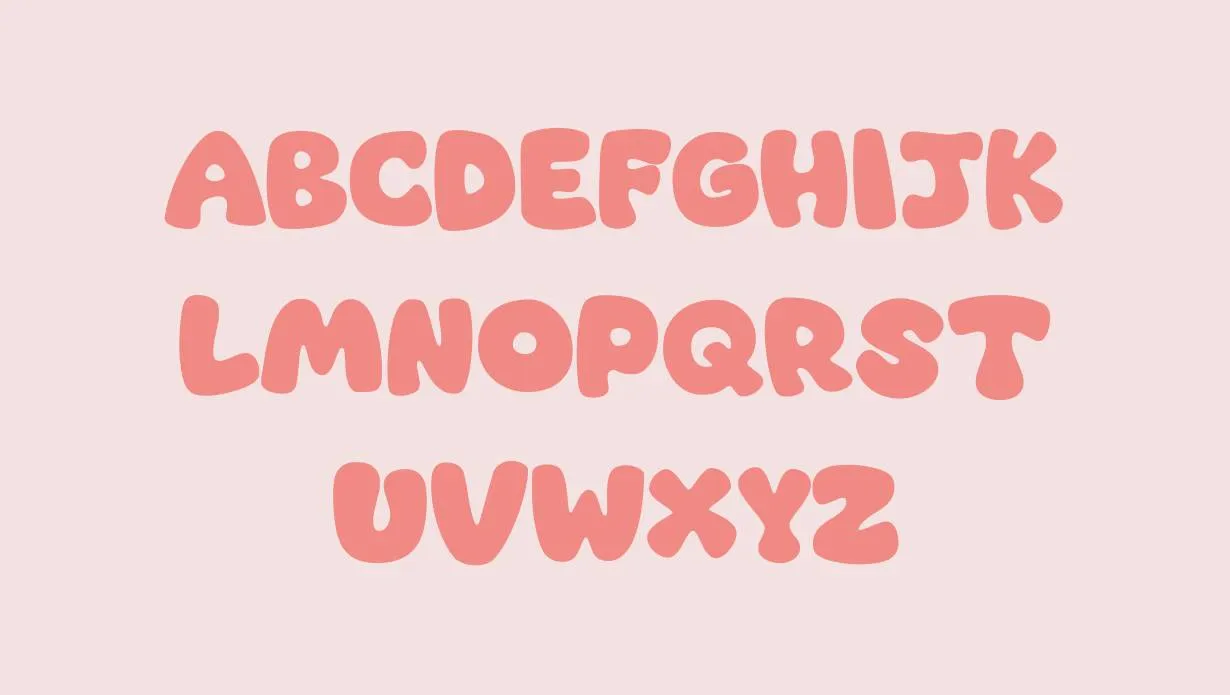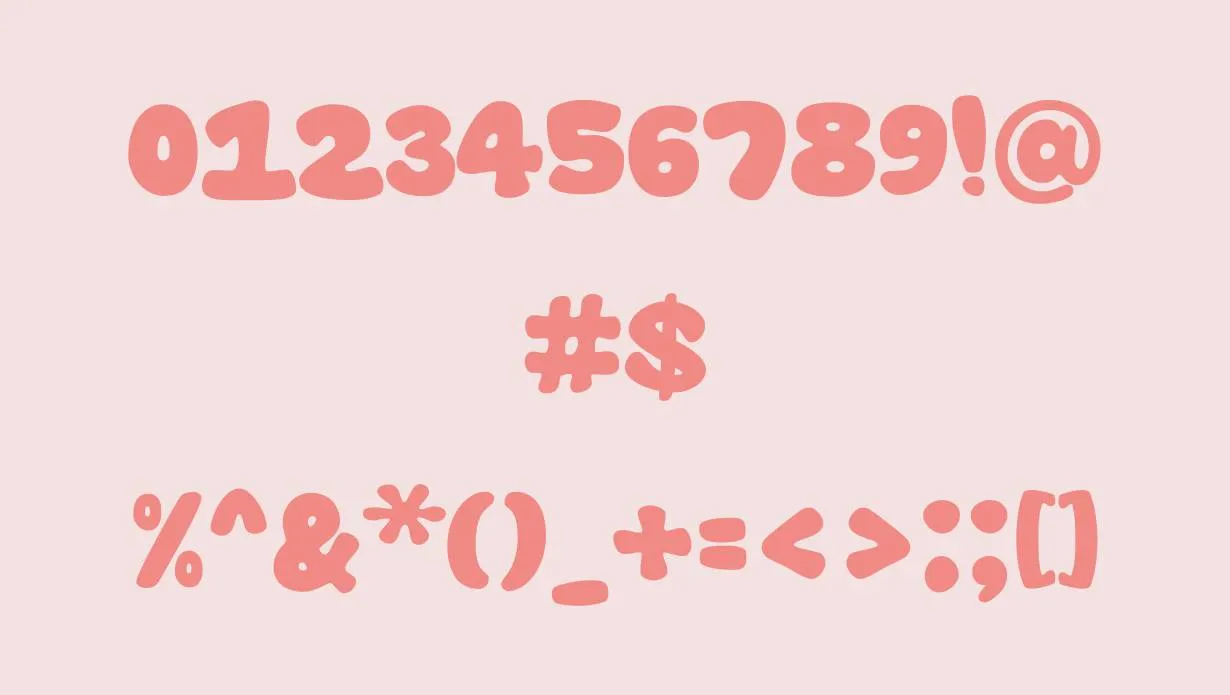
Super Bubble Font lies under the fancy font family category. The designer of this typeface is none other than fsuarez913. He created various other typefaces as well. You can use this font for prominent headlines of comics, titles, and subheadings.
This typeface is very similar to candice font all the characters of both typefaces are identical to each other.